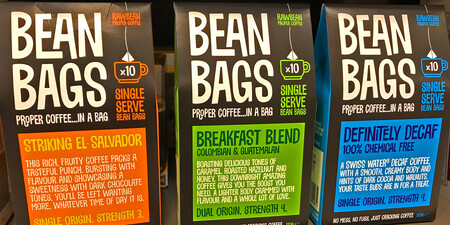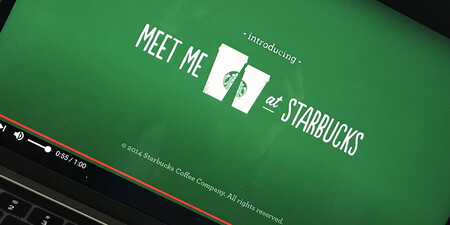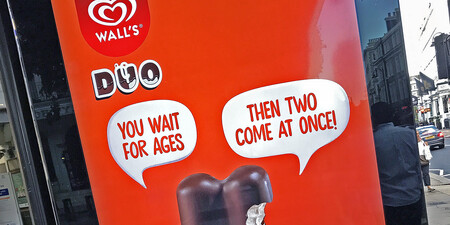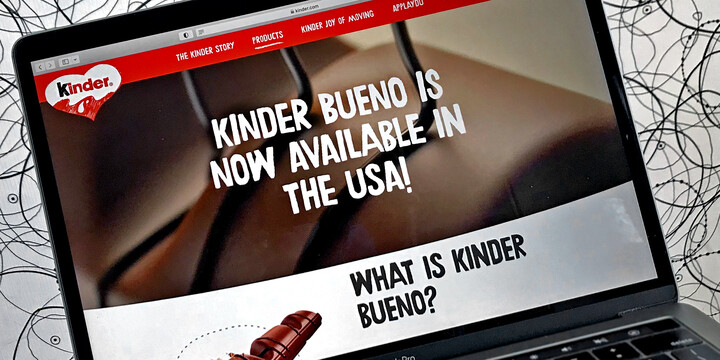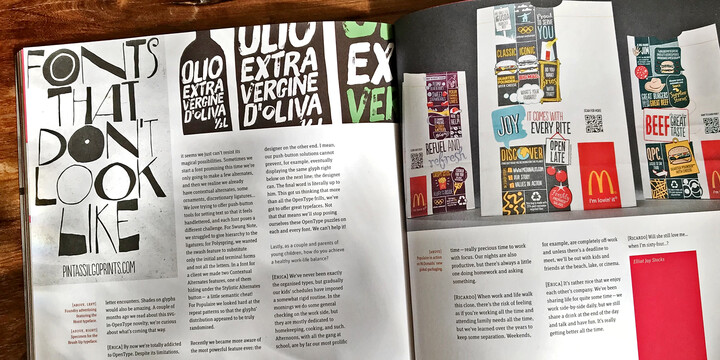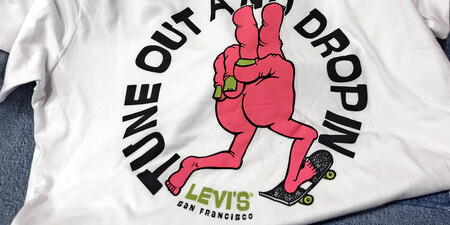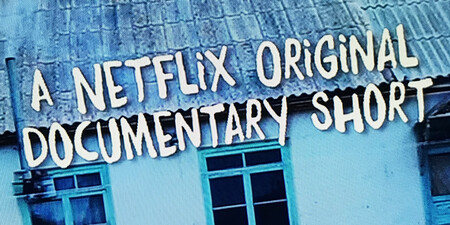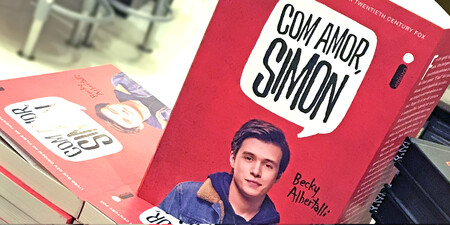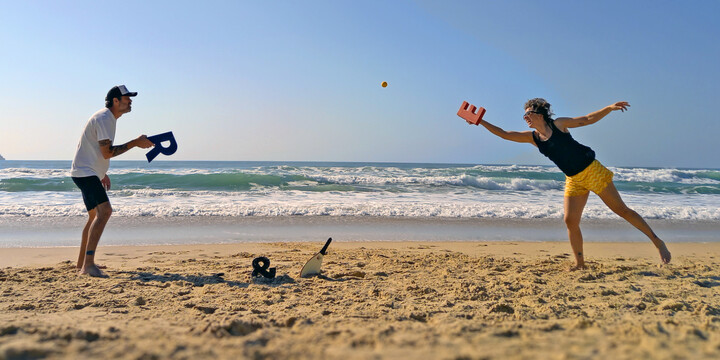
Fonts from PintassilgoPrints.
PintassilgoPrints is a digital type foundry based in Brazil, founded and run by Erica Jung & Ricardo Marcin. Since 2009 they develop successful display fonts, both retail and custom, powered by solar energy and trusted by talented creatives all over the world.
Deliberately open-minded, Mindset brings two hand-drawn sans-serif styles, both loaded with alternates for a warm human feel. The family has yet a picture font with an assortment of stylish graphic elements for more eye-catching occasions. Positively handy, Mindset always goes well where a touch of hand-done is welcome, while keeping a low-profile.
Hundreds of smart interlocking pairs sprinkled with some clever OpenType magic makes Swung Note an unmistakable dynamic font, bold, intrepid, a font for truly standing out. As the letters assume different shapes in different ligatures the results looks astoundingly natural. Add to that a sixties feel that never go out of style and there’s no doubt this is an amazing tool for creating eye-catching custom-lettered-looking designs.
Arca is inspired by a Brazilian beloved album for children by Vinicius de Moraes, author of the bossa nova classic ‘Garota de Ipanema’ (Girl from Ipanema) with his partner Tom Jobim.
The font has a cheerful cutout look, as does the original album cover, Arca de Noé, designed by Elifas Andreato in 1980. Loaded with alternates for a natural look, Arca has yet quite cool interlocks. Its complementary picture font brings handsome graphic elements for adding some ‘bossa’ here and there.
Swiftly painted on paper and carefully translated into a font, Brush Up counts three glyphs for each letter and two for each numeral, plus variations for punctuation marks. The font is cleverly programmed to cycle all these alternates when Contextual Alternates engines are turned on, delivering a striking and vibrant hand-lettered feel. Brush Up is available in two styles, for tons of purposes.
Marujo is a highly decorative typeface inspired by paintings from Arthur Bispo do Rosário, a Brazilian artist who lived for 50 years in a psychiatric institution. Besides its regular styles, Marujo has nifty eye-catching variations and a picture font with mostly nautical subjects – strongly present on works by Bispo do Rosário, a former seaman apprentice. Marujo draws inspiration not only from Bispo’s works, but also from this man’s potency, a persistent being who produced amazing art locked in such a tough environment for a life-long.Marujo fonts are positively adventurous and will safely navigate through a sea of feelings, reaching free spirits everywhere.
Salted is a font duo of deliberately different styles, both handwritten and packed with alternates for a warm human feel. Salted regular brings yet discretionary ligatures that completely transform the font mood, adding touches of cursive script along the way and creating a natural look. Despite their differences, Salted fonts get along very well and are unmistakably suited for creative free-spirited projects out there.
PintassilgoPrints is run by two people who love the sun and the ocean as much as they love type. Not surprisingly, the studio was born on an island and is now located – who would guess? – on another island. It’s also not surprising that their fonts, which reflect their background in experimental printing processes, are filled with positive vibrations. And quite possibly with a splash of seawater.
Erica Jung
Erica Jung is half of PintassilgoPrints. She graduated from Communication School at the Federal University of Rio de Janeiro, presenting a final work devoted to typography. She worked as a graphic and web designer and in 2009 dreamed PintassilgoPrints with her partner Ricardo. The dream came true—and stayed beautifully true. Erica works from his home in Florianópolis, south of Brazil. She loves the sun, reading books, and playing drums. Heavily.
Graphic & Type Designer
Ricardo Marcin
Ricardo Marcin is half of PintassilgoPrints. He has a technical degree in Chemistry, occupation of his first professional years while attending Philosophy at the Federal University of Rio de Janeiro. After many years dedicated to manual printing processes and the creation of graphic pieces and products, which always involved letter drawings and paintings, he launched PintassilgoPrints in 2009 with his partner Erica, with whom he also shares life.
Ricardo now works from his home office on the beautiful island of Florianópolis. He doesn't surf. Yet.